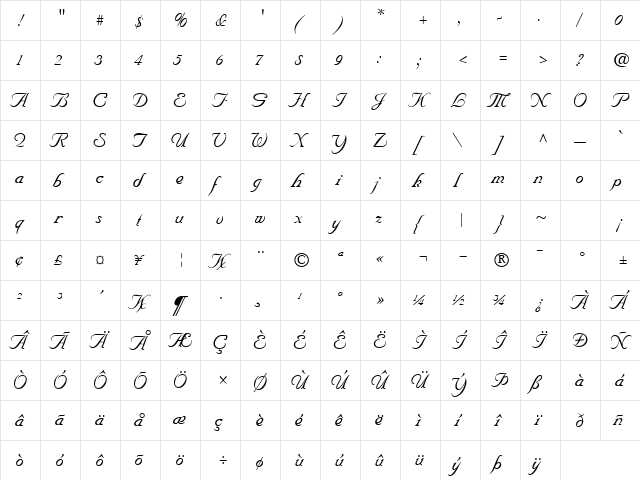
K Barr頭 Cursive Regular Font Preview
K Barr頭 Cursive Regular
Design Context for K Barr頭 Cursive Typeface
K Barr頭 Cursive flows with the natural rhythm of handwritten lettering, making it ideal for designs that call for warmth and personal expression.